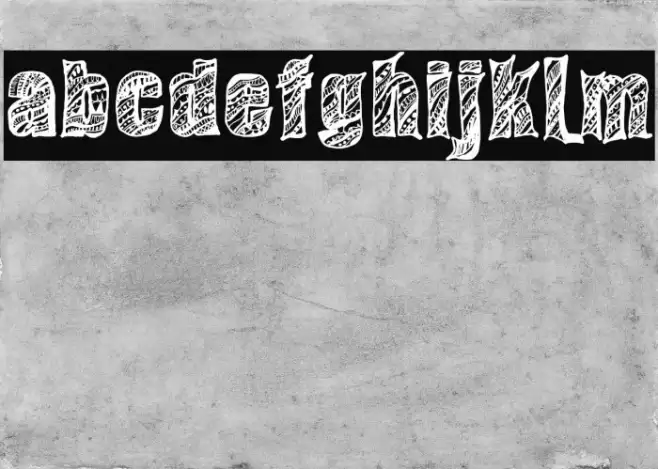
Sixties Regular Font
Sixties Regular Description
This font exudes a playful and retro vibe, reminiscent of the 1960s with its bold, decorative patterns filling each character. The intricate designs within the letters create a sense of movement and energy, making it visually striking and unique. The font features a mix of thick and thin strokes, adding to its dynamic appearance. Each letter is distinct, with a hand-drawn quality that enhances its artistic flair. The overall style is both nostalgic and modern, making it suitable for projects that aim to capture a vintage yet contemporary feel.
A bold, decorative font with intricate, retro-inspired patterns from Decorative fonts.
- Proposed Projects: Ideal for vintage-themed posters, album covers, and creative branding projects.
- Overall Style: Vintage